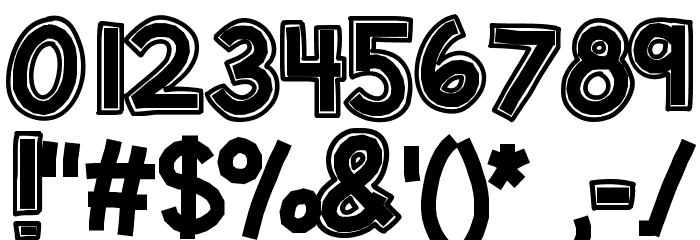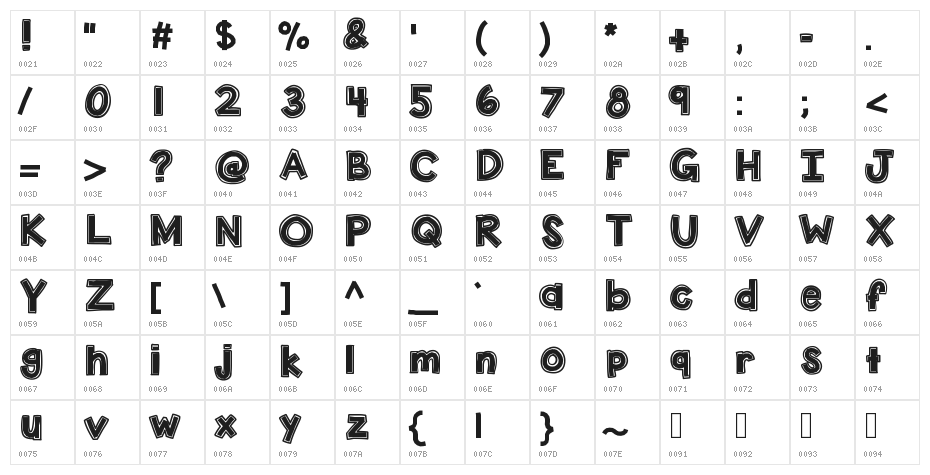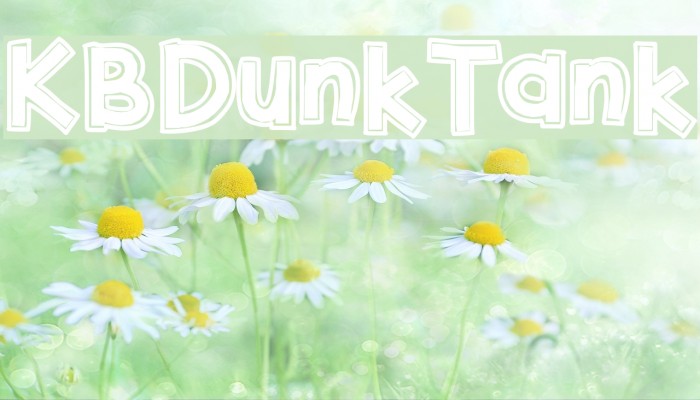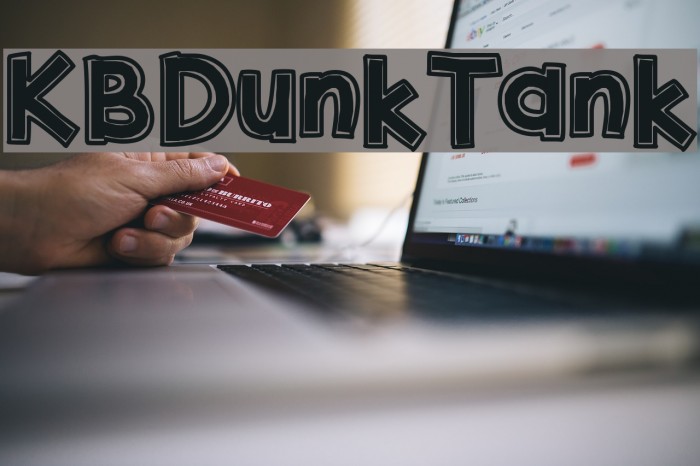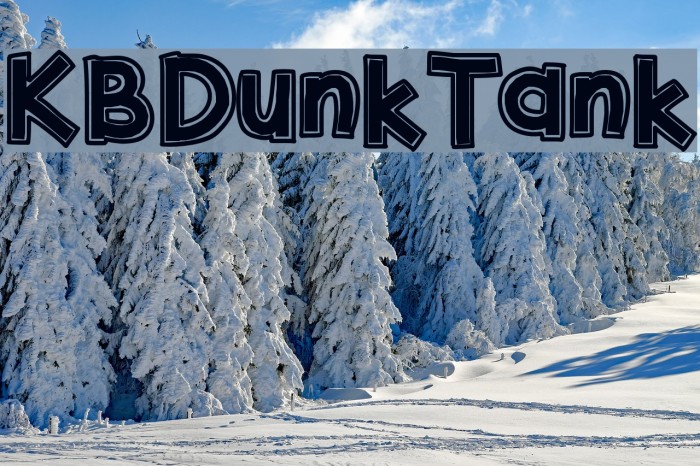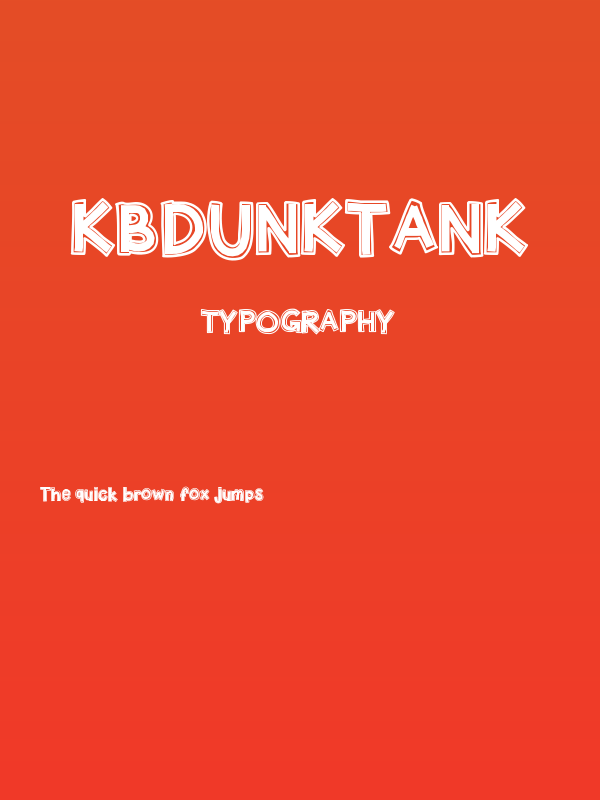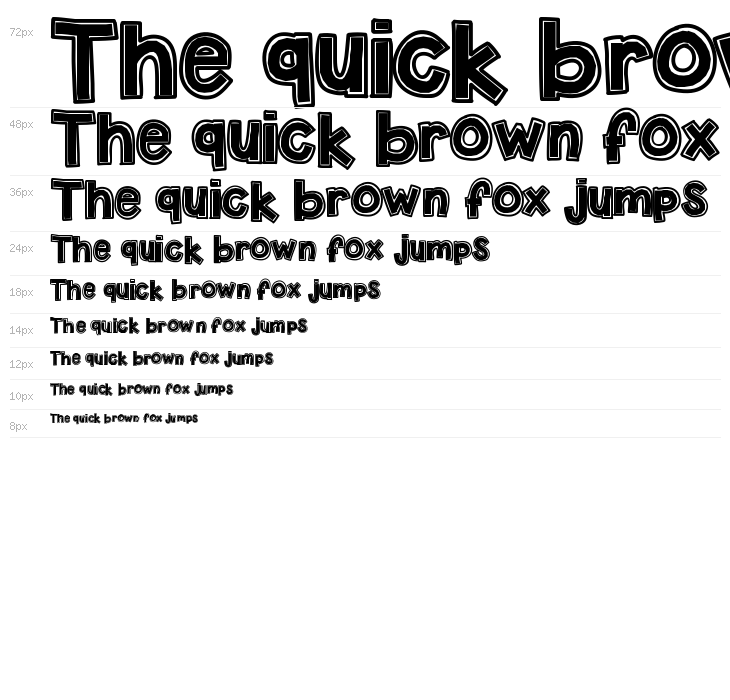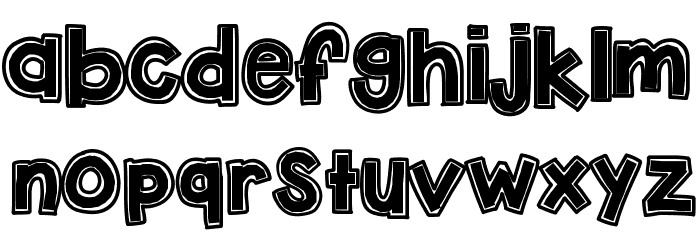
KBDunkTank Font
KBDunkTank Description
This font features a bold, playful style with a three-dimensional effect created by a thick outline shadow. The characters are uppercase and lowercase with a consistent, rounded shape that adds a sense of fun and approachability. The numbers and special characters maintain the same playful aesthetic, making the font versatile for various uses. The bold strokes and shadow effect give it a standout appearance, perfect for grabbing attention.
| Overall Style | Playful, Fun, Decorative |
| Proposed Projects | Ideal for children's book covers, playful branding, event posters, and any design needing a fun, eye-catching typeface. |